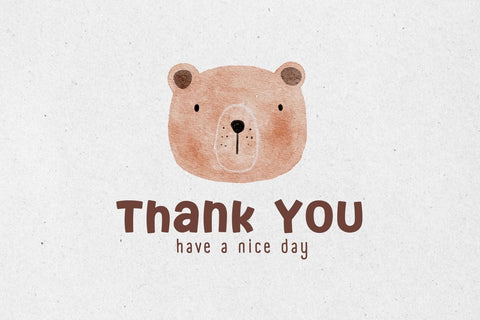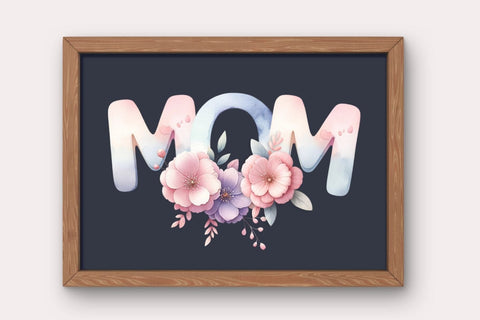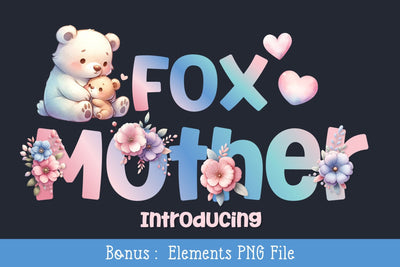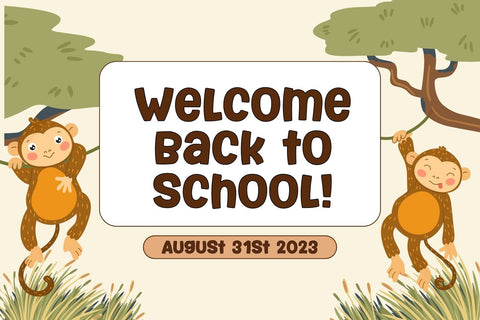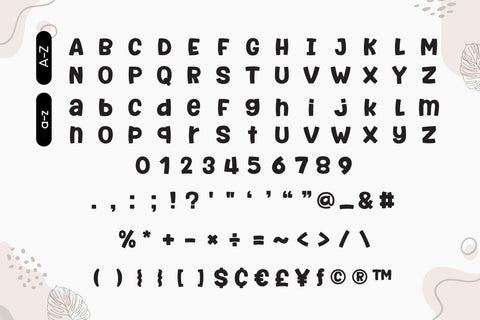
Fox Mother Font
Fox Mother is a cute, casual, and friendly Display font perfect for children’s projects, blog posts, logos, branding, ads, invitations, greeting cards, planners, photo albums, decorations, and much more. It will be a wonderful asset to your fonts library as it has the potential to enhance any creation. Add it to any of your designs and enjoy the results!